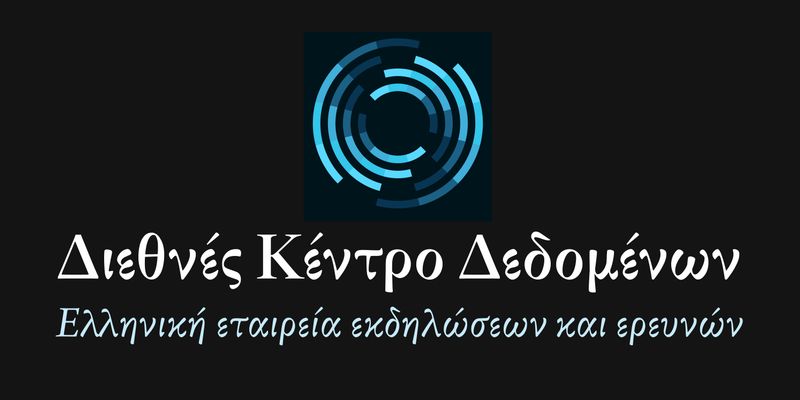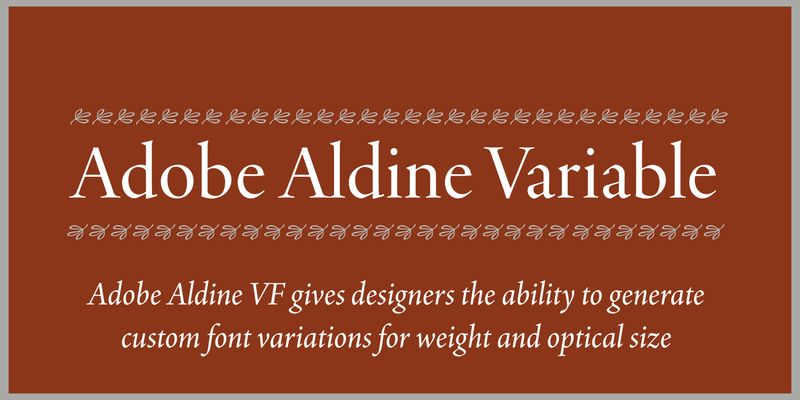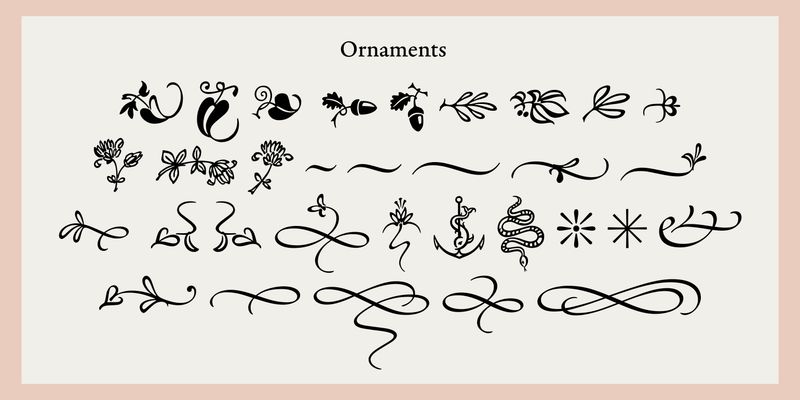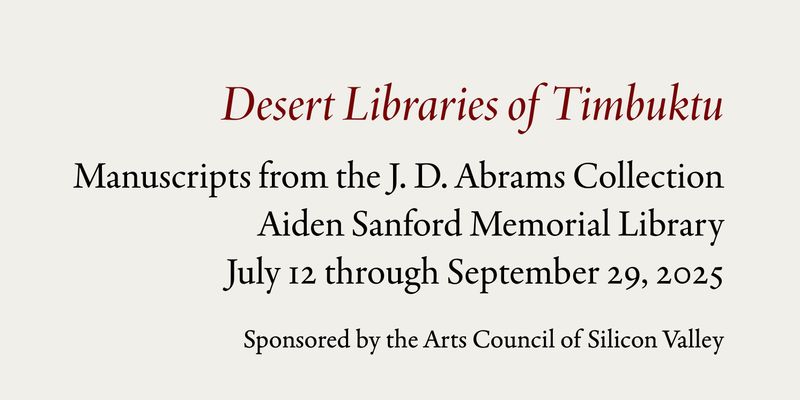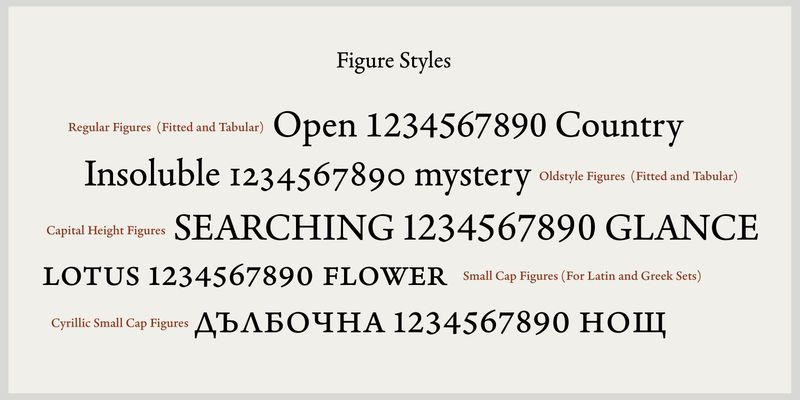
Many years in the making, the latest Adobe Originals typeface from illustrious type designer Robert Slimbach is finally released! Aldine is a contemporary interpretation of the humanist book types developed at the Aldine Press at the turn of the 15th century.
Complete with language coverage for Latin, Greek, and Cyrillic as well as multiple figure styles and beautiful ornaments. Available in both Variable and static format, the family gives designers the ability to create custom fonts in any combination of weight and optical size.
Adobe Aldine was designed with on-screen usage in mind, providing a coordinated system of highly readable typefaces that bring a classical type of the past tailored for modern digital work environments.